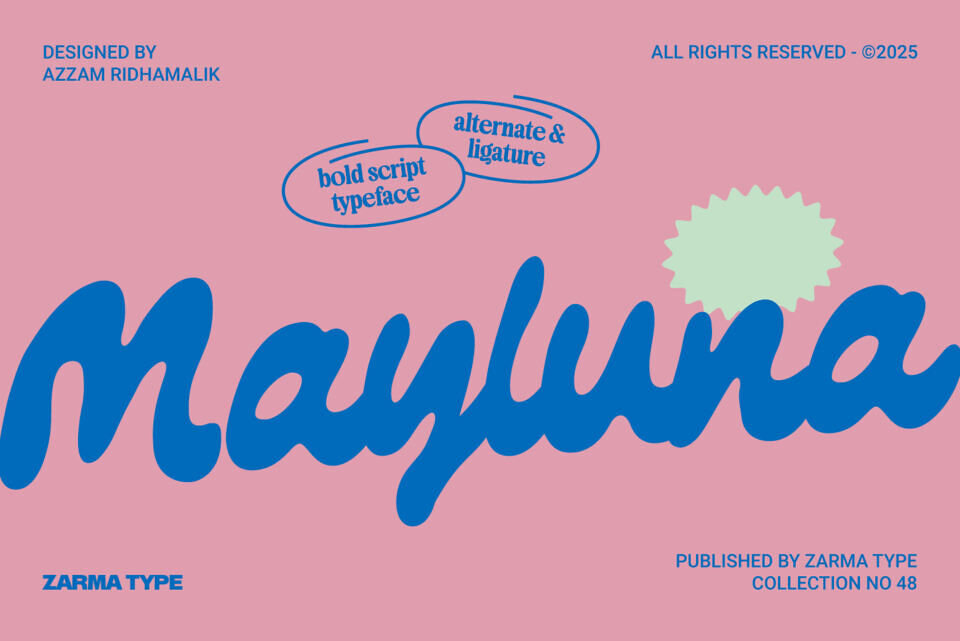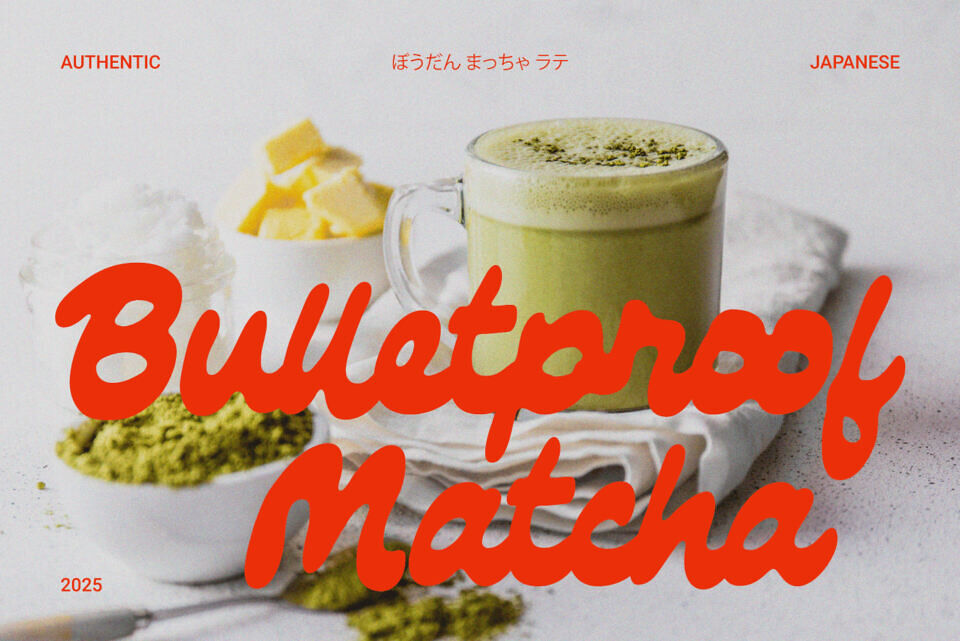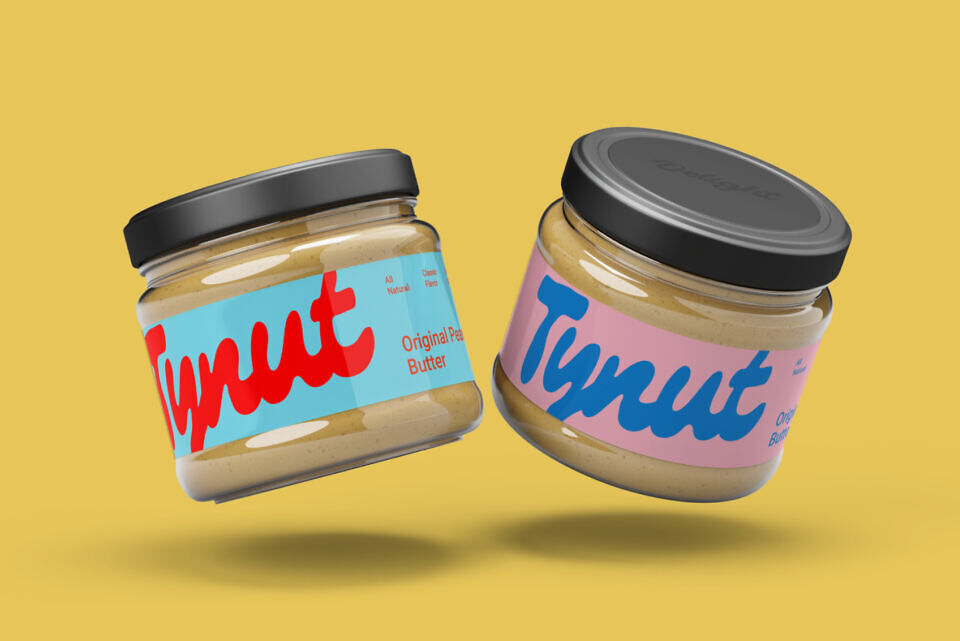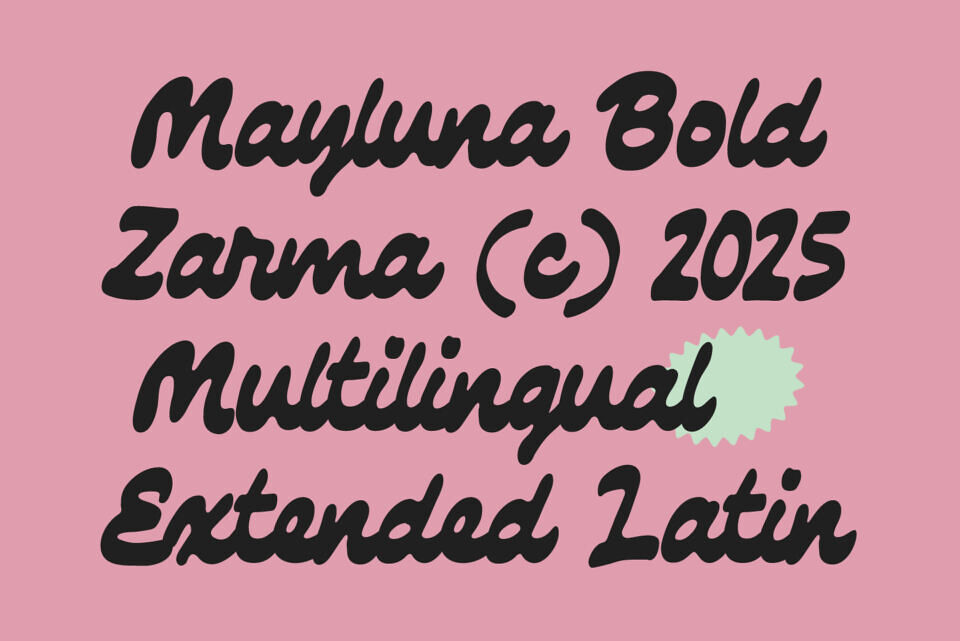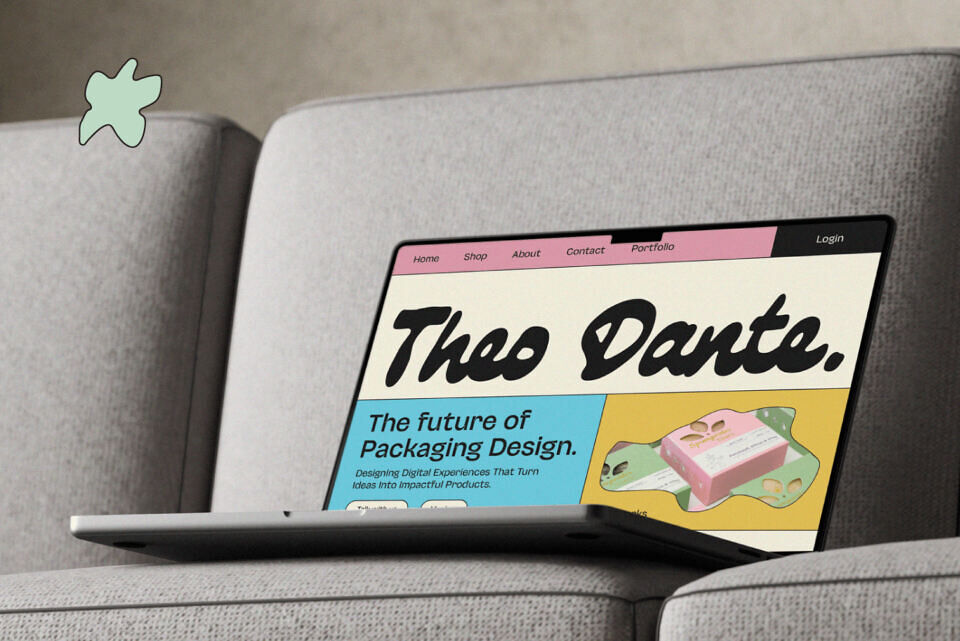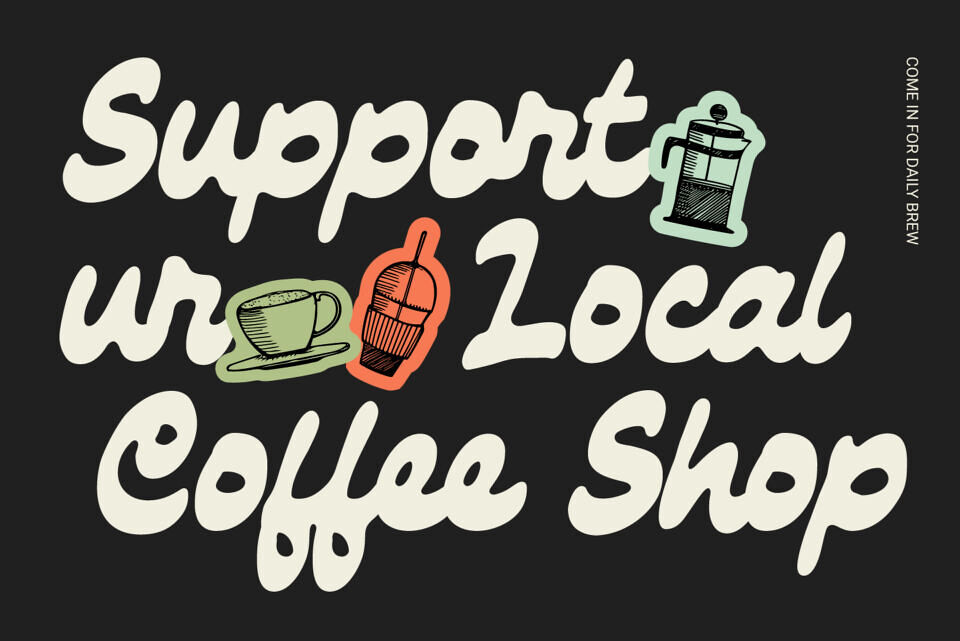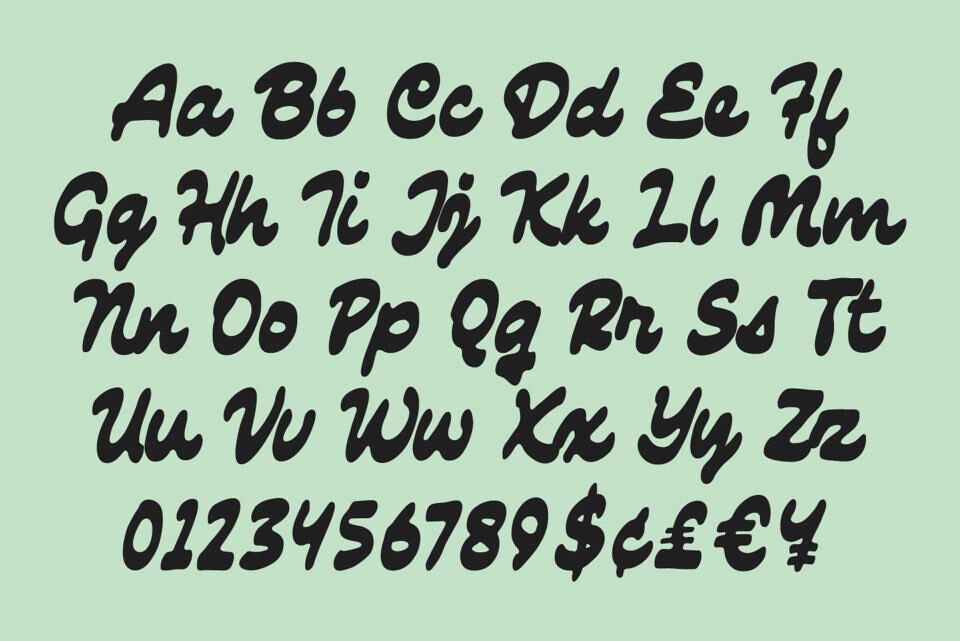
Mayluna Font is a delicious bold script font, the sister of Chunko bold font, designed to bring warmth, personality, and punch into your visual projects. With its juicy curves, smooth ligatures, and handcrafted flow, Mayluna channels retro charm with a fresh, playful attitude. It’s perfect for brands that want to make bold statements while maintaining a soft and approachable feel.
Perfectly aligned with the bold minimalism trend, Mayluna thrives in clean layouts where typography takes center stage. Whether for cozy café branding, fun packaging, or stylish social posts, Mayluna adds a strong yet friendly voice to your message. Its readability, rhythm, and charm make it incredibly versatile across a wide range of creative needs.